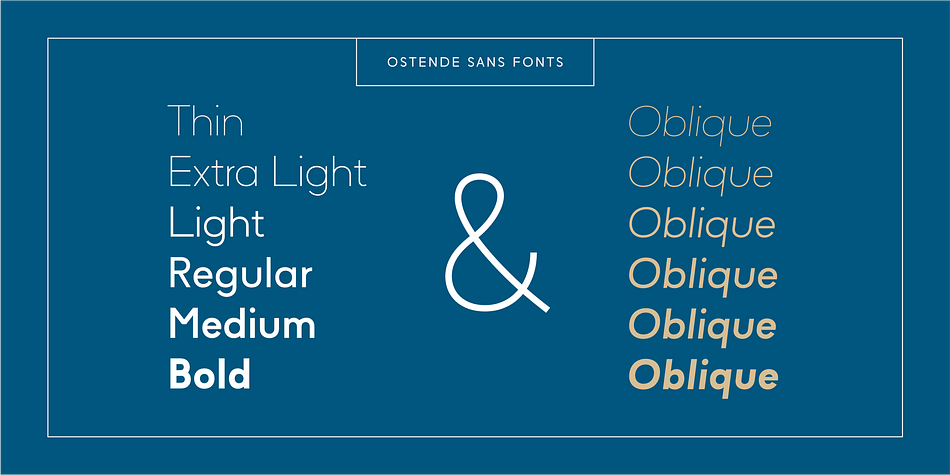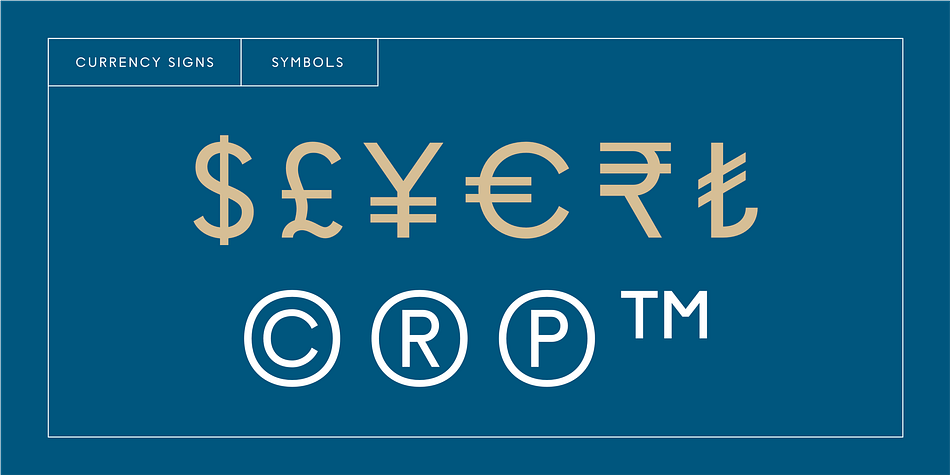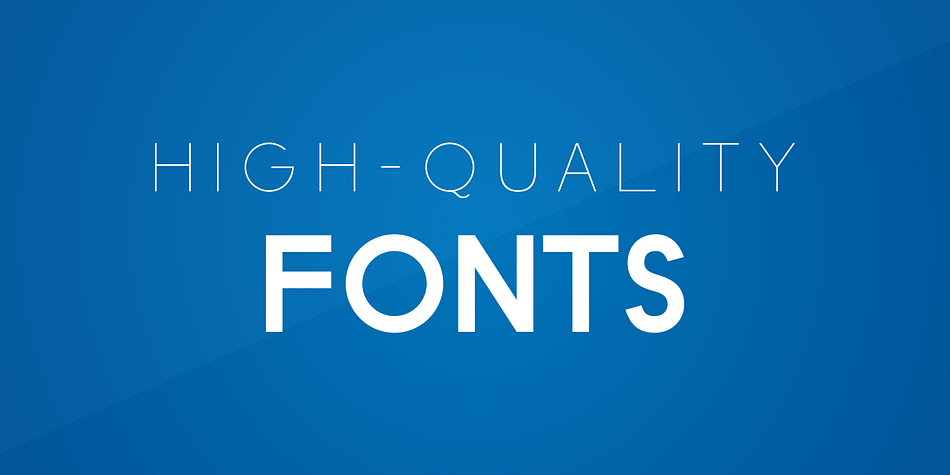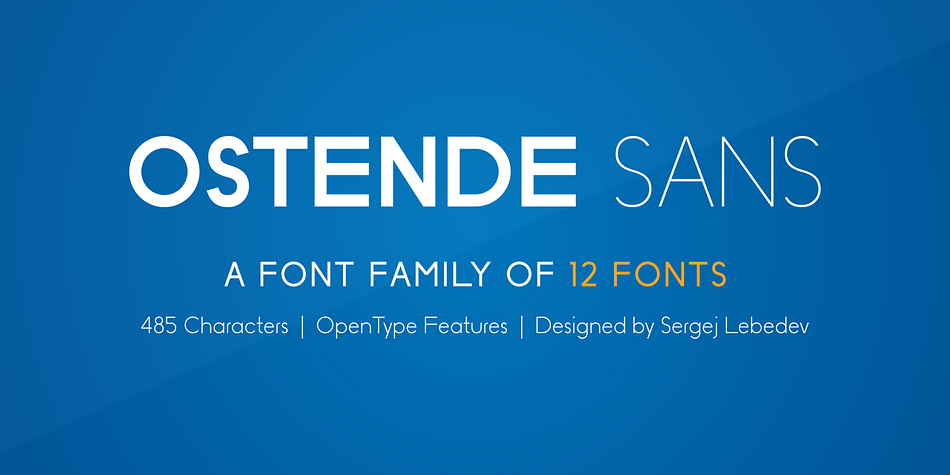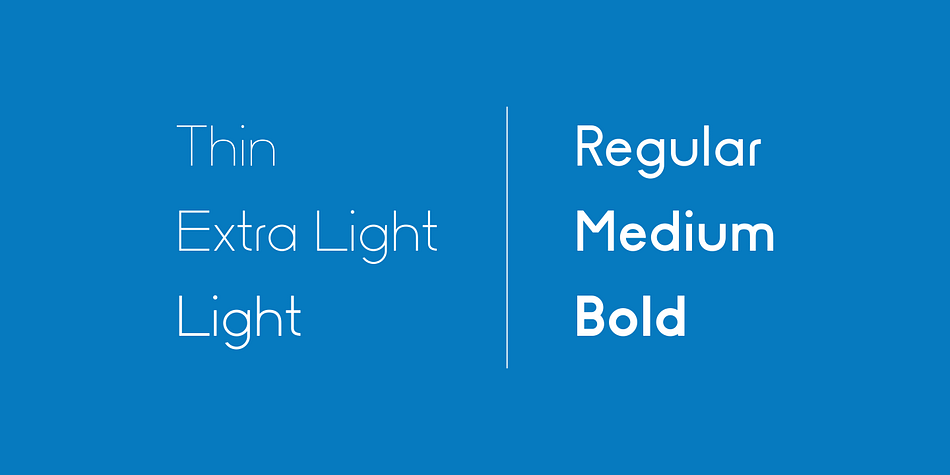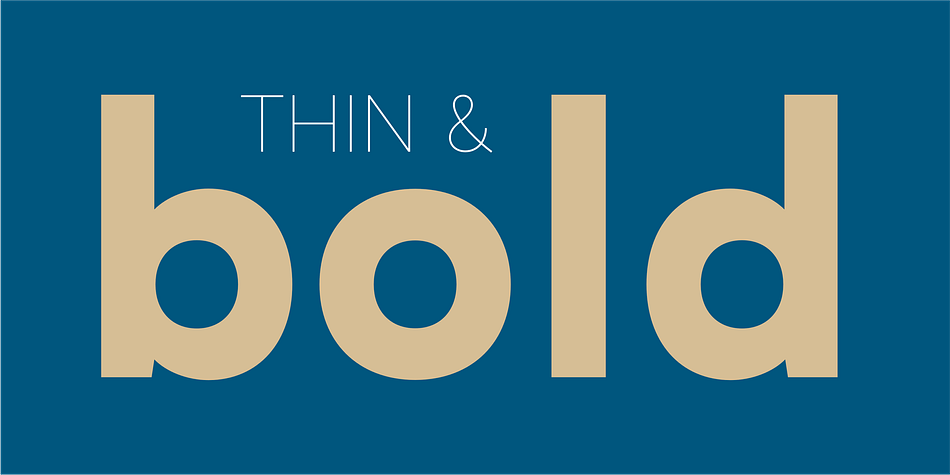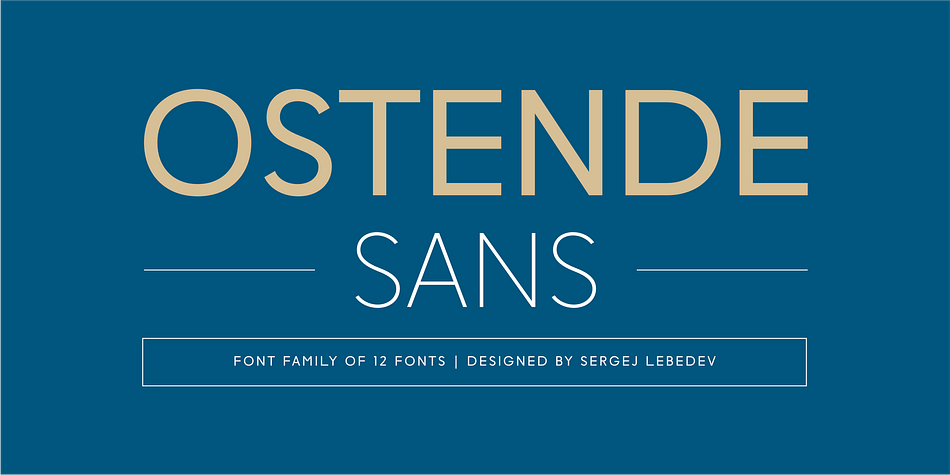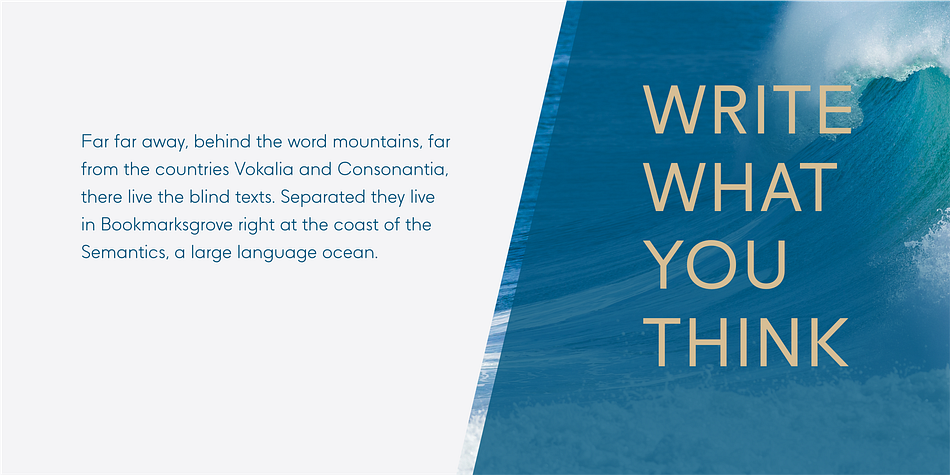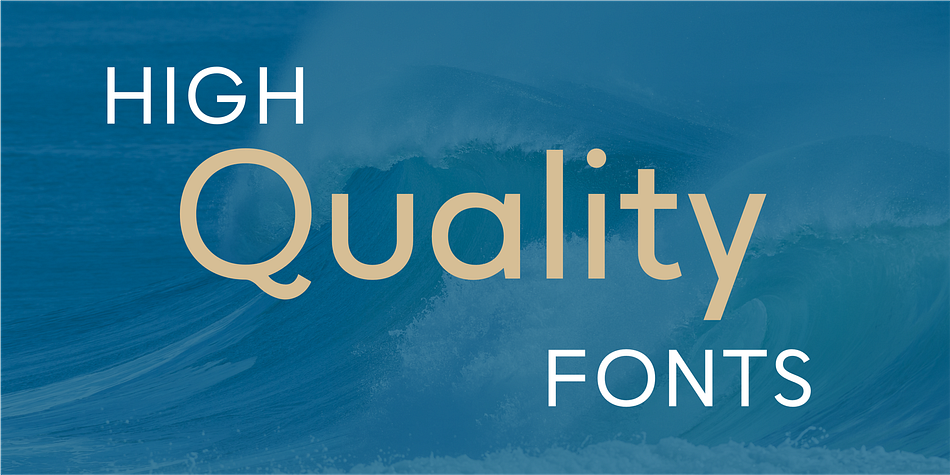
Designed by Sergej Lebedev, Ostende Sans is a sans serif font family. This typeface has twelve styles and was published by Sergej Lebedev.
The font family Ostende Sans is a modern, constructed typeface that is particularly well suited for corporate identity, corporate design, business correspondence, printed materials and communication design. The design language of Ostende Sans is concise and rational in details.
Ostende Sans font family was named after the port city, resort Ostend on the Belgian coast.